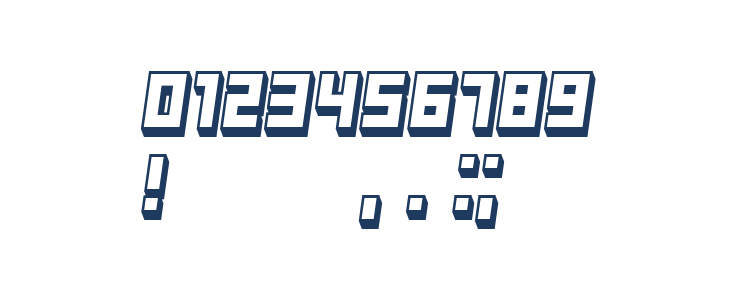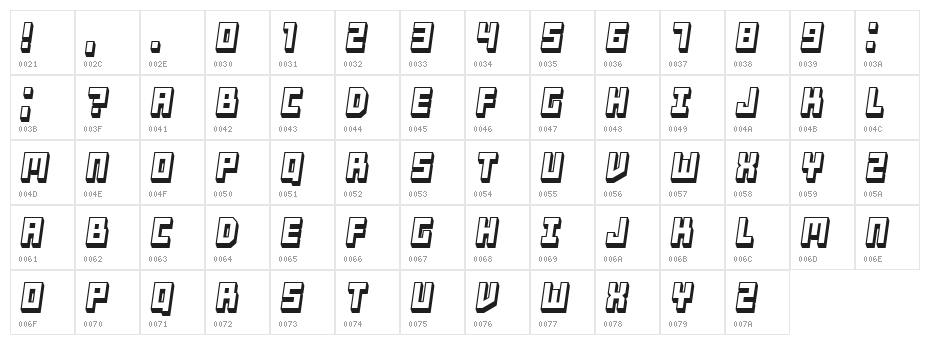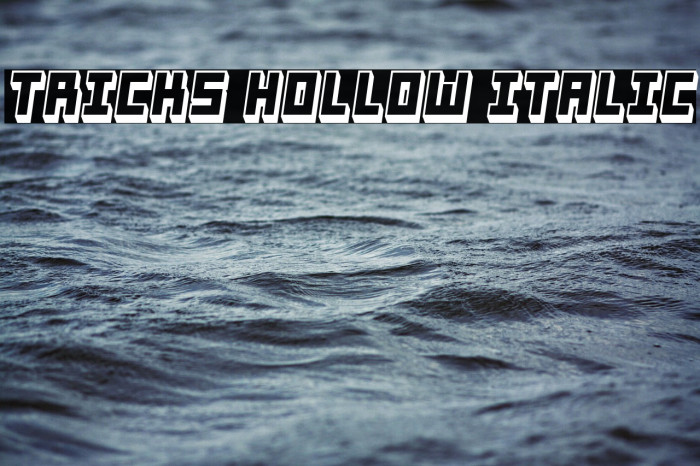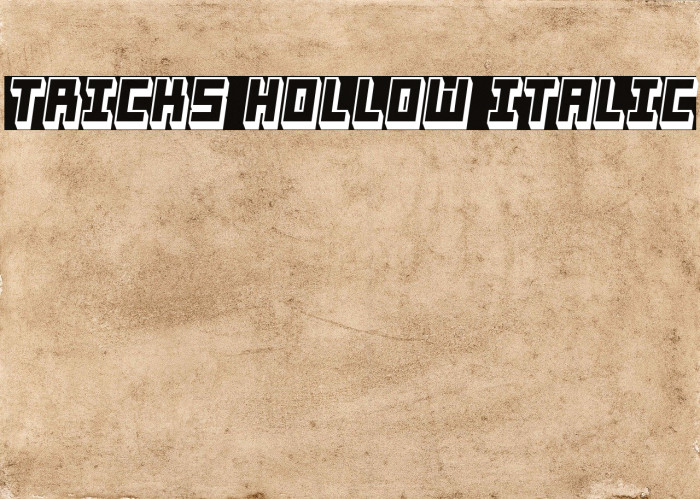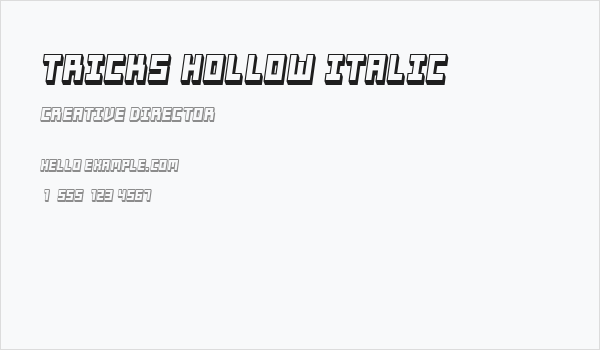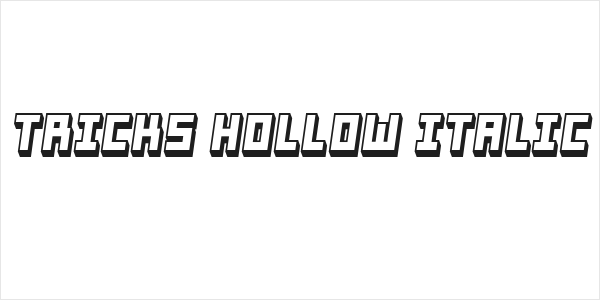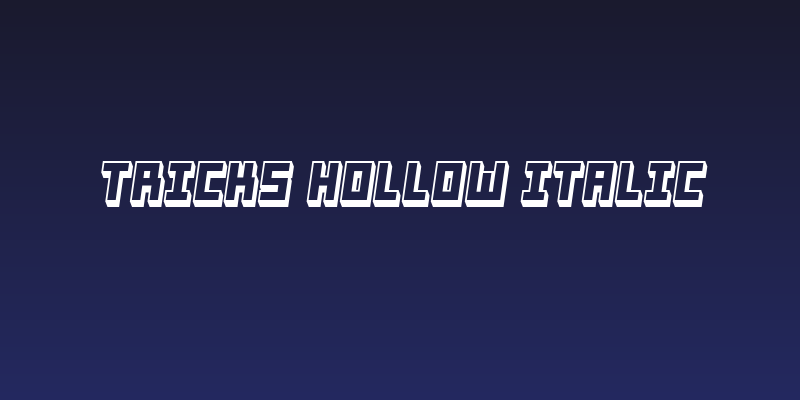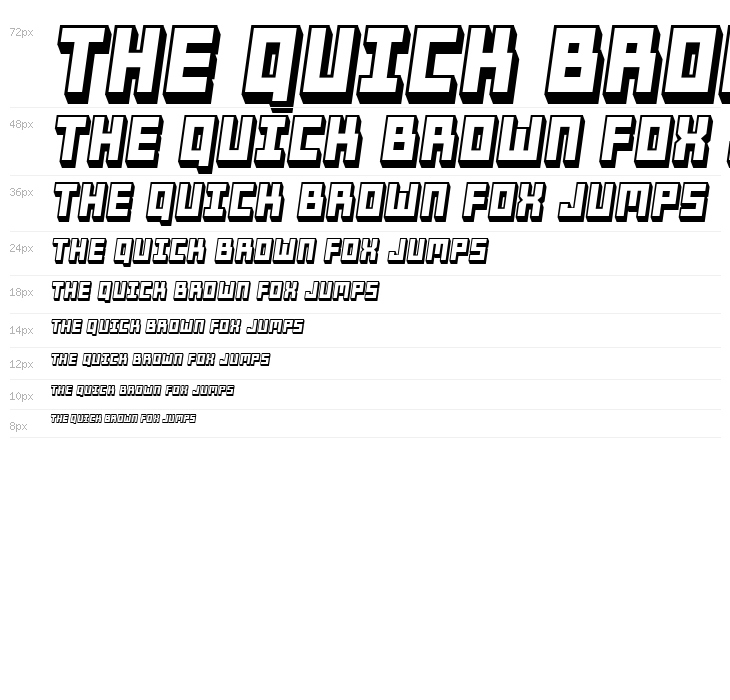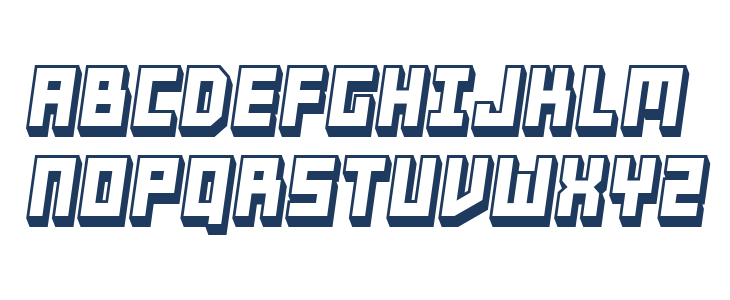
Tricks Hollow Italic Font
Tricks Hollow Italic Description
This font features a bold, hollow design with a distinct 3D effect, giving it a striking and dynamic appearance. The characters are italicized, adding a sense of motion and energy. Each letter is outlined with a thick black border, enhancing the hollow interior and creating a strong visual impact. The font is highly legible, with consistent spacing and a modern, edgy style that makes it suitable for attention-grabbing headlines and titles. Its geometric shapes and bold lines convey a sense of strength and confidence, making it ideal for projects that require a bold statement.